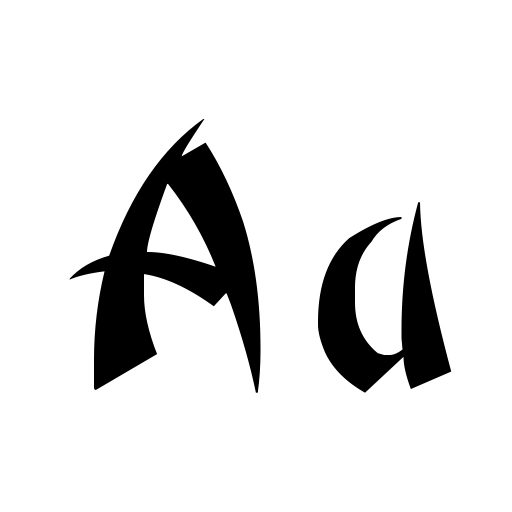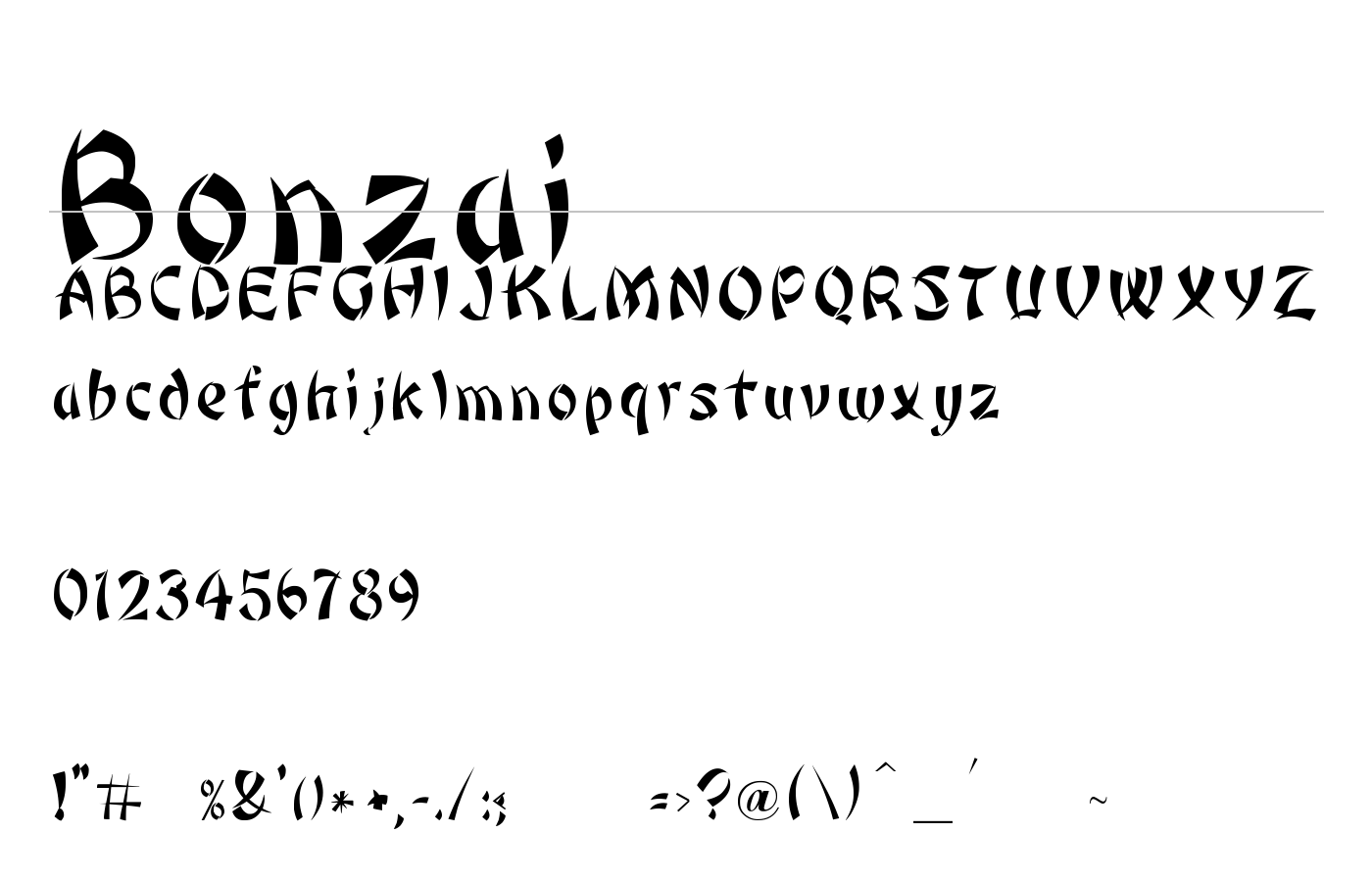
Bonzai is a distinctive serif font with sharp, angular strokes that evoke an energetic and edgy vibe. Its high contrast and unique letter shapes give it a dynamic, almost calligraphic feel, making it ideal for eye-catching headlines, branding, or creative projects that want to convey boldness and originality. This font stands out in designs that seek a blend of modern flair with artistic sharpness.
Bonzai Font